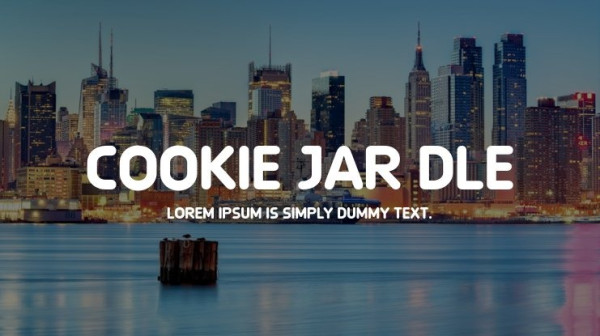
Cookie Jar DLE Font, This font was created for all forms of business and branding such as clothing, logos, skate boards and others according to your needs.
Cookie Jar DLE Font